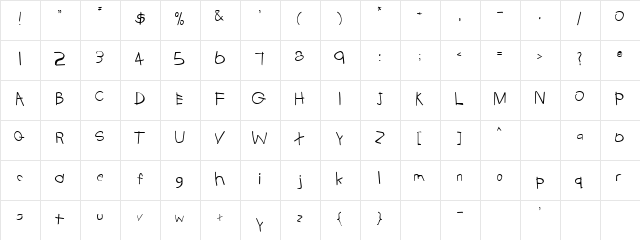
TRIONAA Regular
Design Context for TRIONAA Typeface
TRIONAA takes a measured approach to typography — its balanced proportions and neutral character make it a reliable workhorse for both digital and print work.